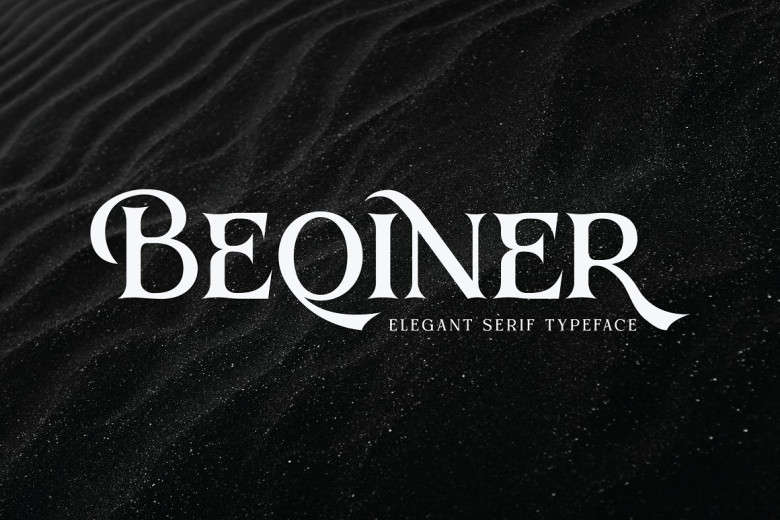
Beqiner Font
Beqiner is a stylish and elegant serif font, created by Denustudio, It has the characteristics of a classic typeface of serifs, modern and its own characteristics modern. This typeface is perfect for an elite and luxurious logos, book and movie titles, clothes titles, quotes sleeves, and much sooner.
Beqiner Elegant Serif Typeface